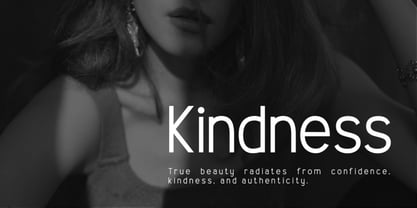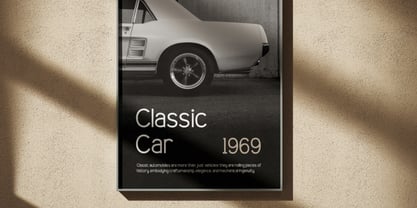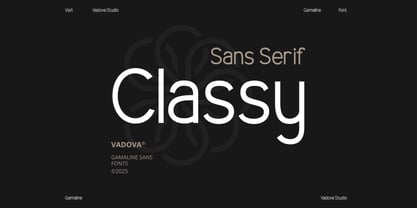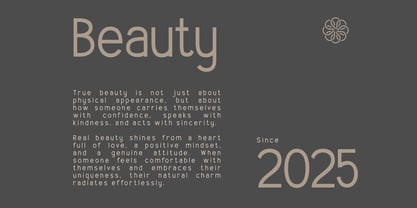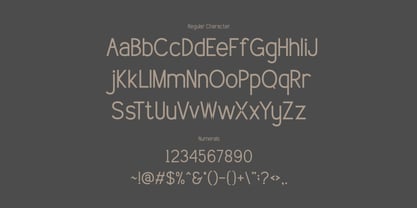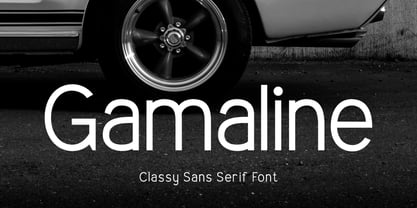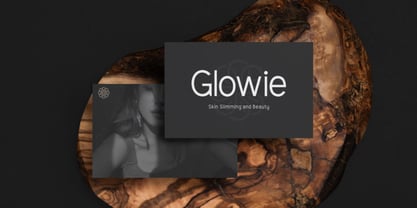
Gamaline
Gamaline features a modern classy sans serif typeface with smooth curves and balanced proportions, delivering a refined and contemporary visual tone. The package includes uppercase, lowercase, numerals, and punctuation, ensuring full versatility for various design applications. Its clean structure combined with subtle elegance makes it suitable for both bold headlines and minimal layouts. Relevance and Use Cases is perfect for automotive branding, luxury product promotions, corporate identity design, modern advertising, editorial layouts, fashion campaigns, website design, portfolio presentations, and high-end marketing materials that require a clean and sophisticated visual tone.